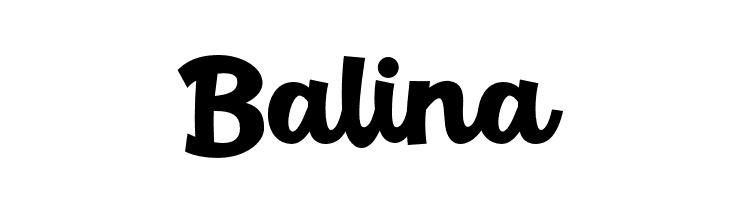
A bold, playful script font with a hand-drawn, energetic style.
A bold, expressive handwritten font with dynamic brush strokes.
A bold, handwritten font with a playful and energetic style.
A bold, expressive handwritten font with dynamic strokes and a playful appearance.